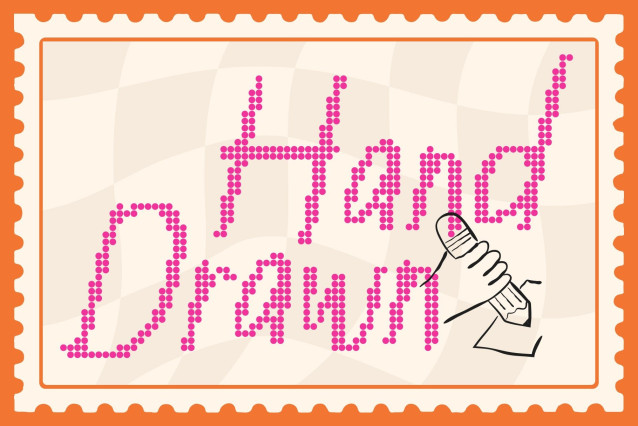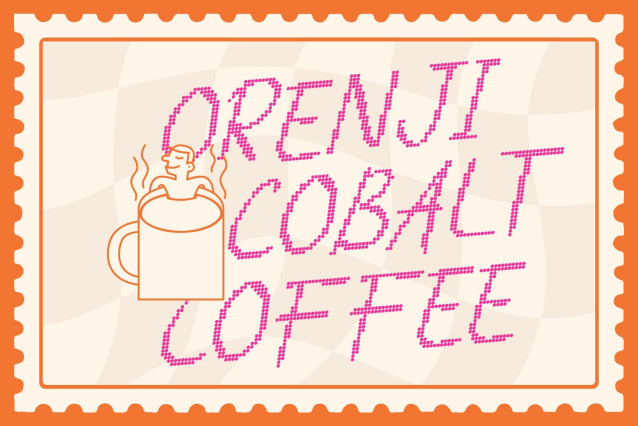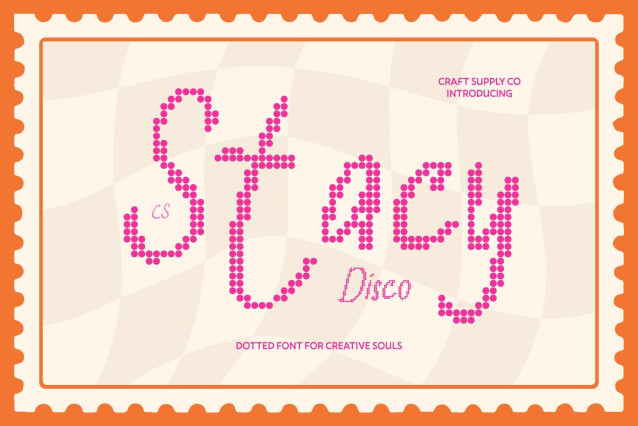
CS Stacy Disco Font
CS Stacy Disco – Hand-Drawn Dot Font with Organic Character
Organic Hand-Drawn Style with Expressive Personality
This is an organic hand-drawn font transformed into a lively dotted display style. Inspired by the charm of handmade lettering, its expressive strokes and natural imperfections remain intact while the disco dot texture adds a cheerful sparkle that makes every word feel playful and energetic.
Unique Handmade Character with Disco Charm
The irregular strokes and playful shapes give this font a strong sense of individuality. The dotted effect enhances its handcrafted look, turning organic lettering into typography that feels festive, friendly, and full of personality.
Perfect for Labels, Posters, and Creative Packaging
This font shines in projects that benefit from a handmade yet eye-catching aesthetic. It works beautifully for product labels, posters, creative packaging, and branding where warmth and creativity need to stand out. The dotted texture adds an extra layer of fun while keeping the lettering readable and engaging.